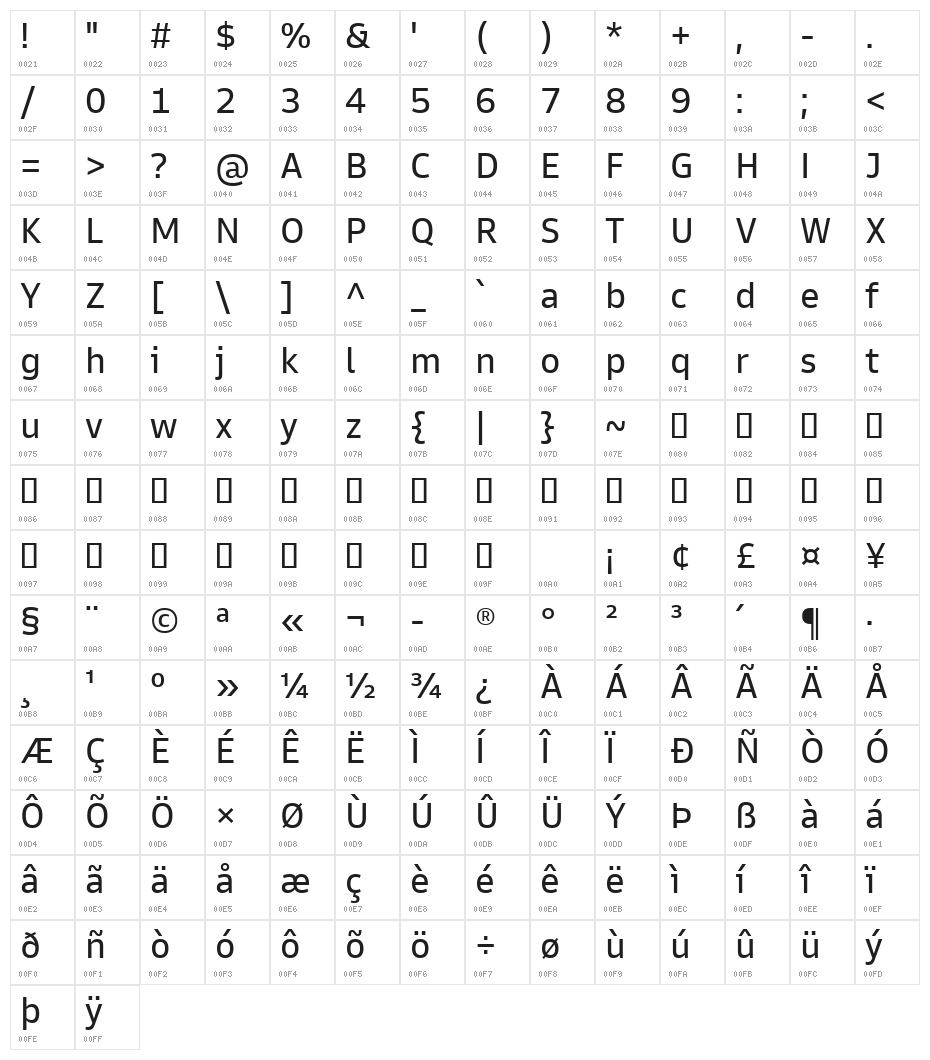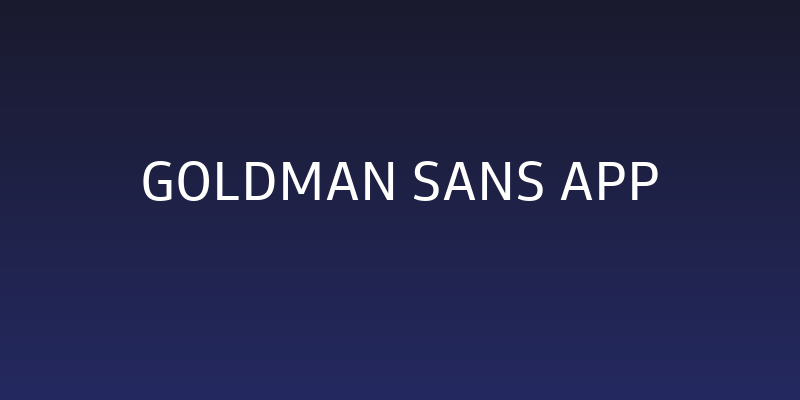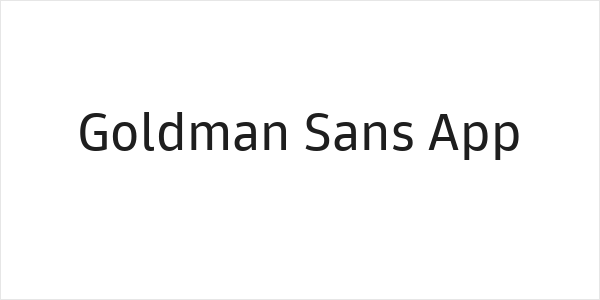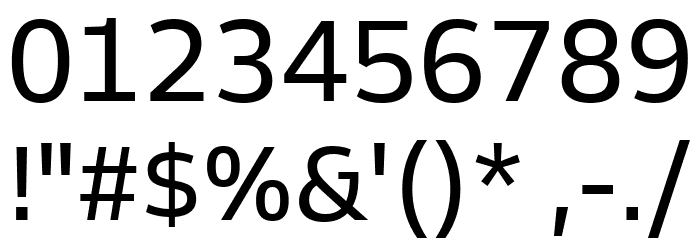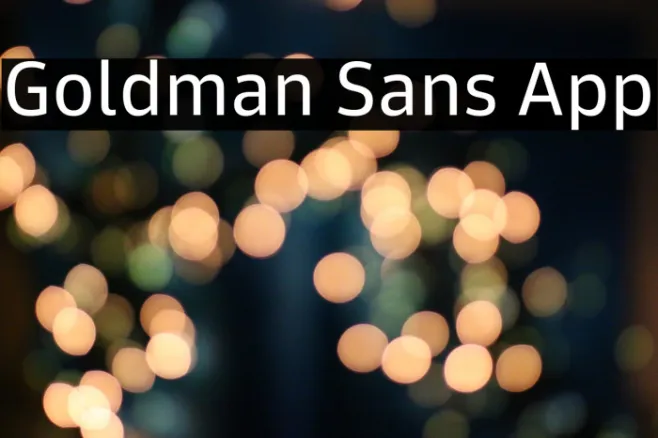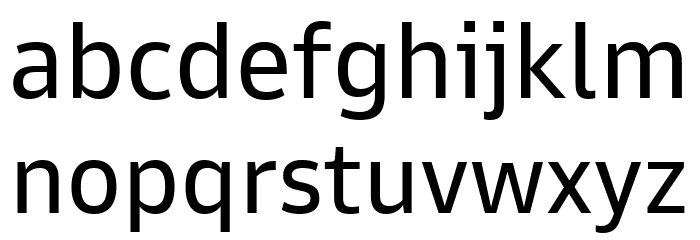
Goldman Sans App Font
Goldman Sans App Description
This font features a clean and modern sans-serif design, characterized by its simplicity and readability. The letters are evenly spaced with a consistent stroke width, providing a balanced and harmonious appearance. The uppercase and lowercase letters are well-proportioned, making it suitable for a variety of text applications. The numerals are clear and distinct, ensuring legibility in numerical data. Special characters are included, maintaining the font's cohesive style. Overall, this font exudes a professional and contemporary feel, ideal for digital and print media.
| Proposed Projects | Ideal for web design, corporate branding, user interfaces, and editorial content. |